As a designer, I often use handwritten fonts to bring personality, authenticity, and a human touch to brand identities. This collection of 11 best handwritten fonts for creative branding in 2026 features typefaces I personally use to create distinctive and memorable visual experiences.
From elegant signature styles to casual handwritten lettering, each font was selected for its unique character and versatility across a wide range of design projects. These typefaces work beautifully for personal brands, creative studios, packaging, social media graphics, boutique businesses, and modern brand identities.
I believe typography is one of the most powerful tools in branding, which is why I carefully choose fonts that help brands feel approachable, authentic, and visually unique while maintaining a polished and professional look.
Bacalisties Handwritten Font
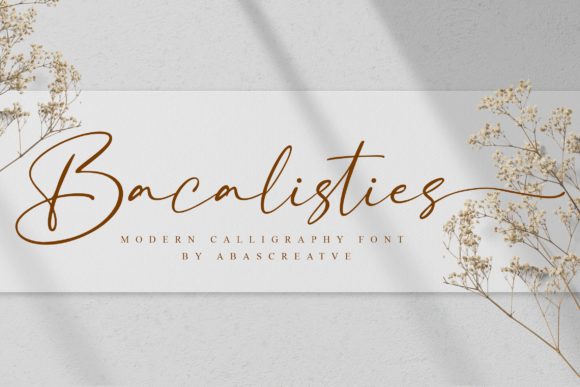
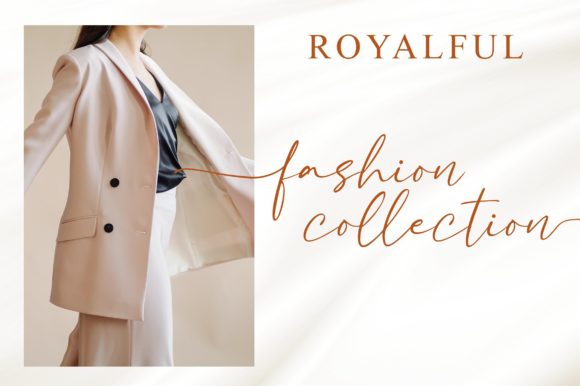
Bacalisties is a stylish and delicate handwritten font with a clean, thin, and smooth aesthetic. Perfect for branding, logos, wedding invitations, social media posts, quotes, and packaging, it adds an elegant and modern touch to any design. Ideal for refined handwritten typography, Bacalisties enhances creative projects with its soft, minimal, and sophisticated vibe.
Ashley Marie Handwritten Font
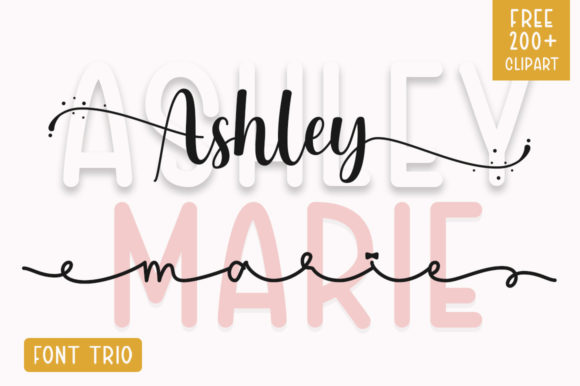
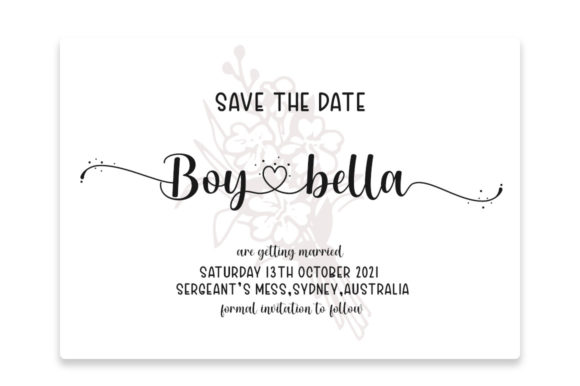
Ashley Marie is a beautiful font duo that combines an elegant script with a clean sans serif typeface, creating the perfect balance of charm and modern sophistication. I enjoy using it for branding, wedding invitations, logos, packaging, social media graphics, and editorial projects because its versatile pairing works effortlessly across a wide range of styles. The graceful script and refined sans serif complement each other beautifully, giving every design a polished, creative, and professional look.
Blush & Bloom Handwritten Font
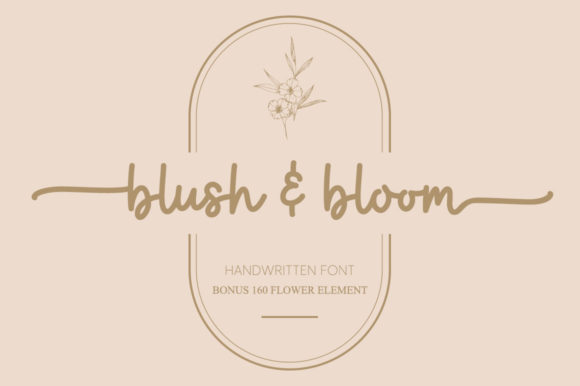
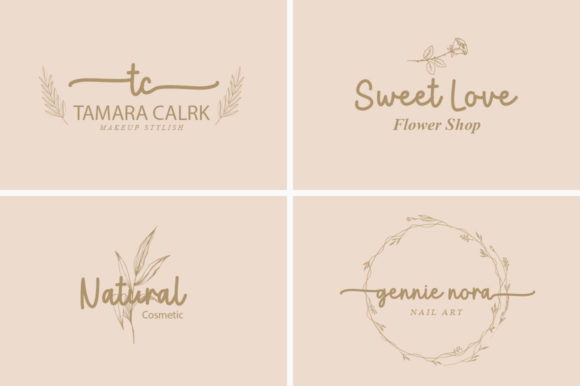
Blush & Bloom is a chic script font that combines elegance, sophistication, and modern style in every letter. I enjoy using it for wedding invitations, luxury branding, logos, packaging, social media graphics, and editorial designs because its graceful lettering feels refined and timeless. The beautiful alternates and ligatures add a distinctive touch, creating a polished and luxurious aesthetic that makes every project look effortlessly stunning.
Calestine Calligraphy Handwritten Font
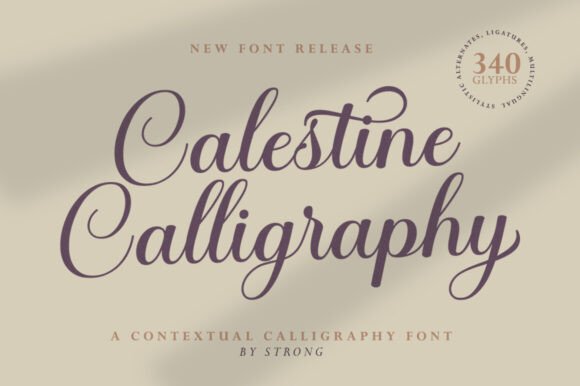
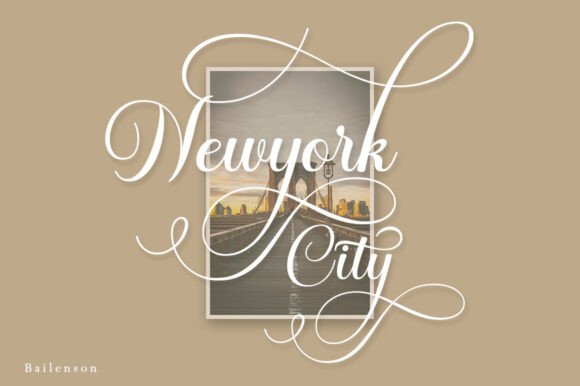
Calestine Calligraphy is a delicate handwritten font that beautifully combines elegance, balance, and timeless charm. I enjoy using it for wedding invitations, branding, logos, greeting cards, packaging, and social media graphics because its graceful lettering feels both sophisticated and versatile. The smooth curves and refined calligraphic style create a luxurious aesthetic that makes every design look polished, romantic, and visually captivating.
Natural Handwriting Font
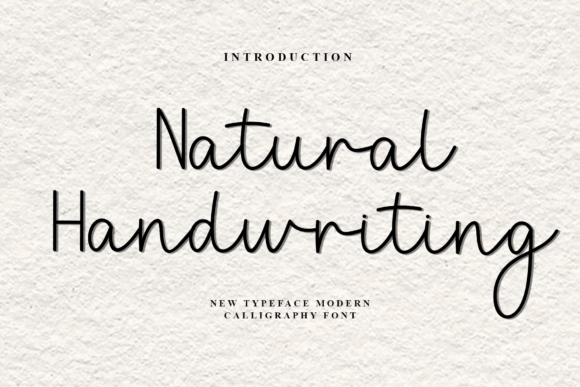
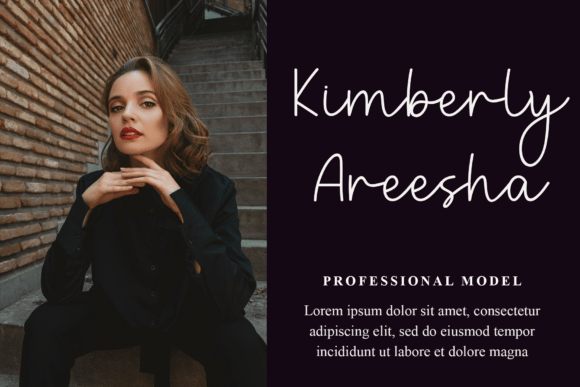
Natural Handwriting is a charming script typeface that captures the warmth and authenticity of genuine handwritten lettering. I love using it for greeting cards, invitations, quotes, packaging, posters, and creative branding because its playful strokes and decorative details feel personal and inviting. The whimsical handwritten style adds a cheerful, nostalgic touch that makes every design look heartfelt, creative, and full of character.
Handwritten Font
Handwritten is a trendy script font that blends contemporary style with the timeless beauty of classic calligraphy. I enjoy using it for branding, logos, wedding invitations, packaging, social media graphics, and editorial designs because its elegant lettering feels both modern and sophisticated. The smooth handwritten strokes and refined character create a polished aesthetic that adds class, charm, and professionalism to any creative project.
Willow Handwritten Font
Willow is a delicate, elegant, and flowing handwritten font with beautifully balanced characters. Its refined script style makes it highly versatile and suitable for a wide range of design projects. Perfect for branding, logos, wedding invitations, quotes, social media, and packaging, Willow adds a soft, graceful, and sophisticated touch to any creative work.
Pink Pastel Handwritten Font
Pink Pastel is a lovely and delicate script font that brings elegance, charm, and a refreshing aesthetic to any design. Perfect for branding, logos, wedding invitations, quotes, packaging, and social media, it adds a soft and stylish handwritten touch. Ideal for modern feminine typography, Pink Pastel enhances creative projects with its graceful and classy appearance.
Perfect Lemonade Handwritten Font
Perfect Lemonade is a cheerful handwritten font that brings warmth, creativity, and playful charm to any design. I love using it for planner pages, sticker packs, greeting cards, social media graphics, journals, and DIY projects because its smooth, bubbly lettering feels friendly and inviting. The relaxed handwritten style adds a handcrafted touch that makes every design look bright, personal, and effortlessly delightful.
Advantage Handwritten Font
Advantage is an enchanting handwritten script font that blends a classic aesthetic with a friendly, approachable feel. Perfect for branding, logos, invitations, quotes, social media, and packaging, it delivers a timeless yet modern handwritten touch. Ideal for creative typography, Advantage helps you craft original and eye-catching designs with effortless elegance.